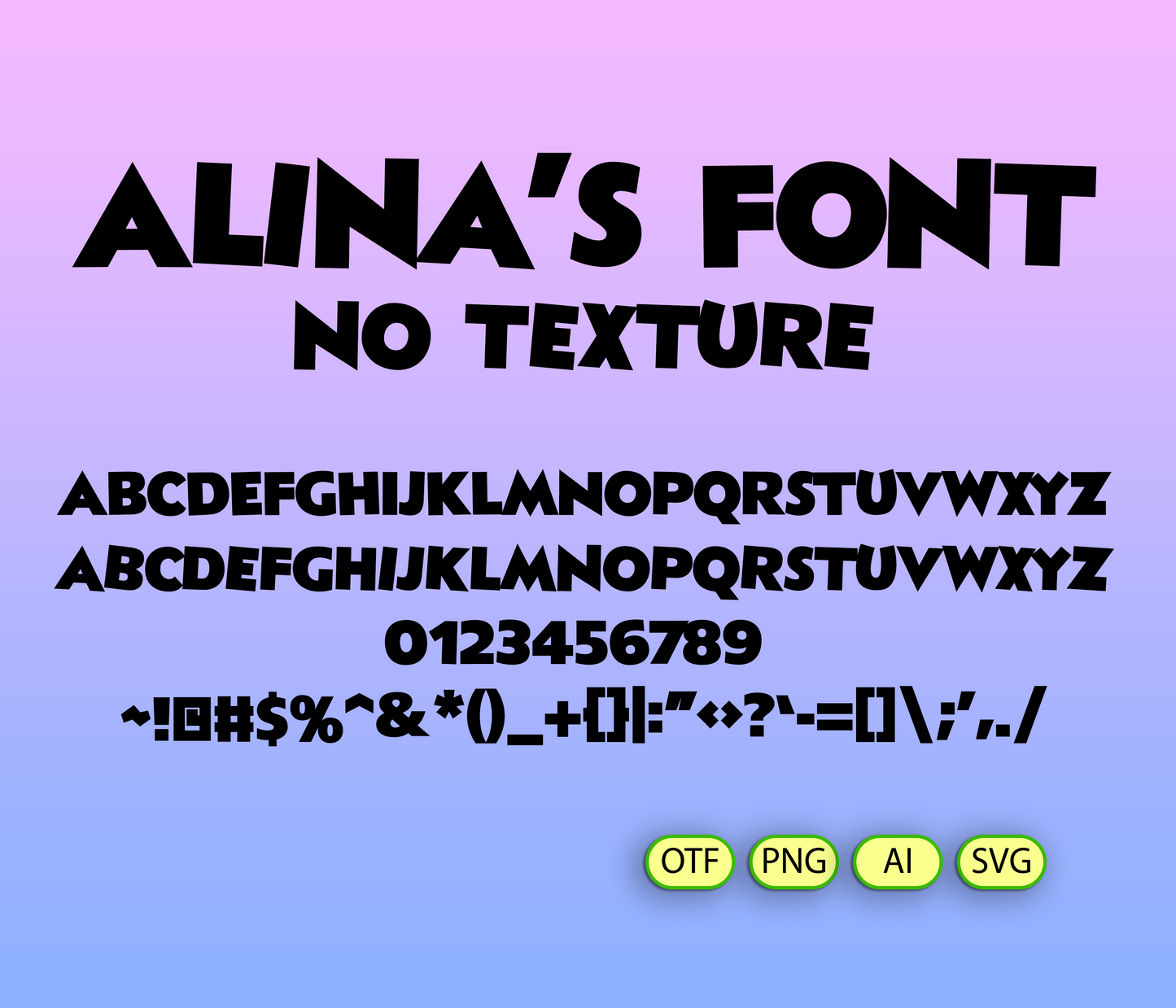
Playful Wonder Cheerful Font
Playful Wonder Cheerful Character Style
Step into the joyful world of childhood magic and playful adventures with our Playful Wonder font, capturing the essence of fun-filled moments and cheerful celebrations. Perfect for children's party planners, family entertainment creators, playful brand designers, and creative professionals, this font brings the happy, energetic spirit of cartoon-inspired adventures to your projects. Create delightful invitations, kid-friendly merchandise, or digital content with the joyful, animated energy of playful character tales.
Our Playful Wonder font features rounded, cheerful strokes and animated characters reflecting the beautifully fun yet timeless aesthetic of cartoon entertainment scenarios. Ideal for:
- Children's Events: Create attention-grabbing invites, posters, and banners for birthday parties, cartoon-themed experiences, and playful gatherings
- Family Entertainment: Perfect for book covers, children's promotions, and fun-themed accessories that capture playful wonder essence
- Digital Media: Enhance websites, blogs, and social media with cheerful headers and graphics that express joy and animated spirit
- Entertainment Content: Add authentic character to children's materials, cartoon designs, and promotional materials for family events
- Personal Projects: Bring cheerful charm to scrapbooking, DIY crafts, and home decor inspired by the aesthetics of playful characters